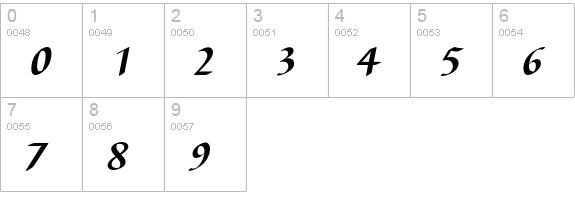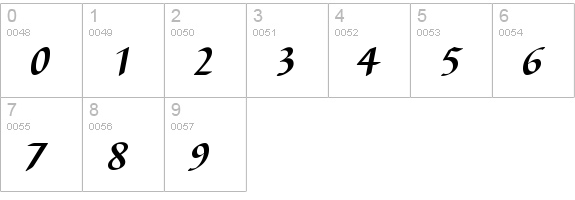
BarbedorEF-BoldItalic is a striking and sophisticated font that exudes elegance and flair. Its bold and italic design commands attention and adds a touch of drama to any project. Whether you're looking to make a bold statement or add a touch of luxury, this font is sure to elevate your designs to the next level. The sleek curves and sharp edges of BarbedorEF-BoldItalic create a dynamic and modern look that is both versatile and eye-catching. Perfect for headings, titles, and logos, this font is sure to make a lasting impression. Best of all, BarbedorEF-BoldItalic is available for free download at FontsMarket.com. So go ahead and add this stunning font to your collection today and take your designs to new heights!